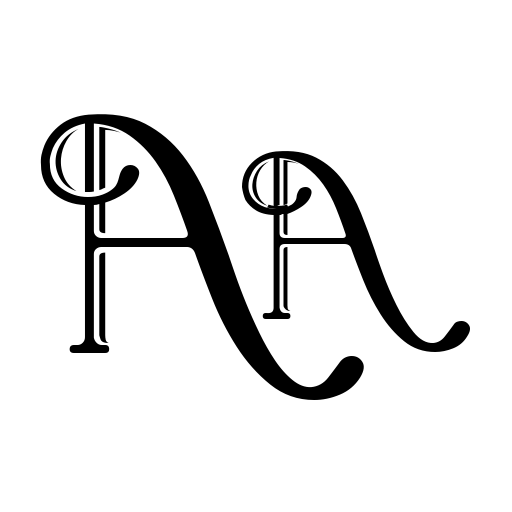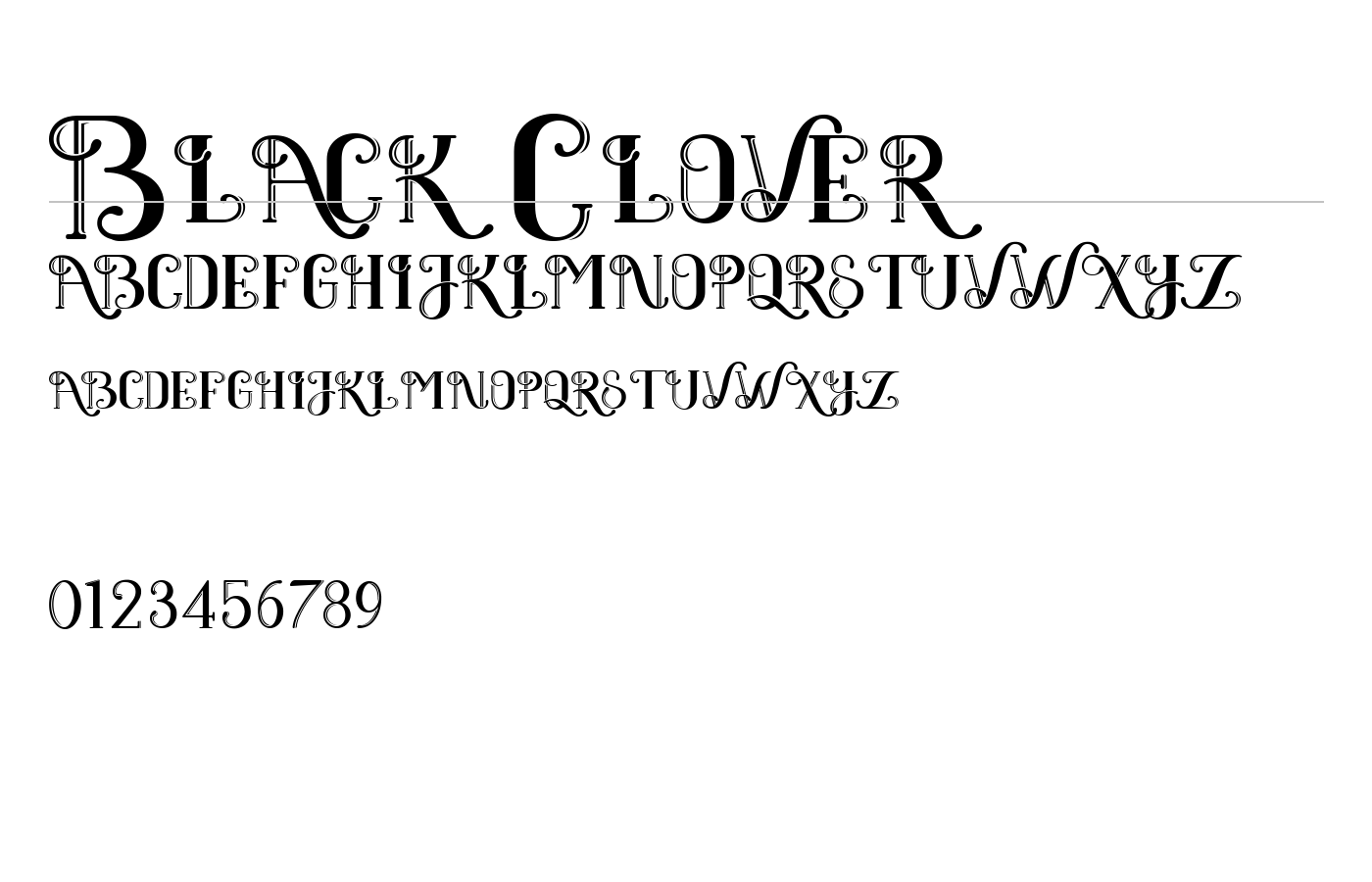
Black Clover is a decorative serif font characterized by its high contrast strokes and ornate, swirling details that give it a vintage yet whimsical feel. With its elegant and delicate letterforms, it works beautifully for logos, headings, and designs looking to evoke a sense of charm and sophistication. This font is perfect for creative branding and artistic projects where a unique, captivating style is desired.
Black Clover Font
About Black Clover Font
| Font family | Black Clover Font |
| Designer | Yan Suari Shakti Pasaribu |